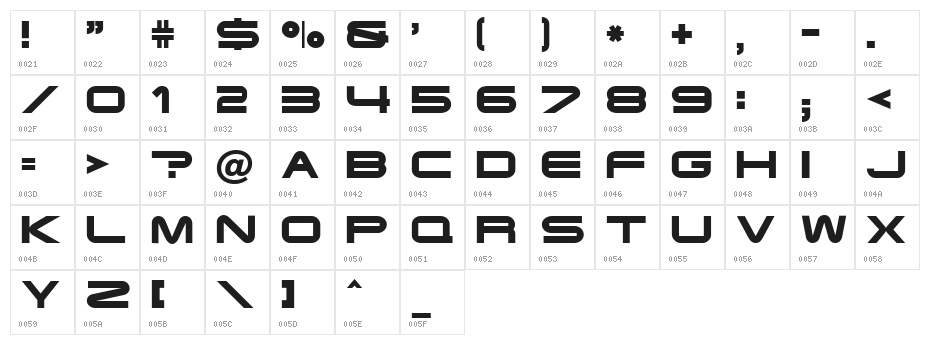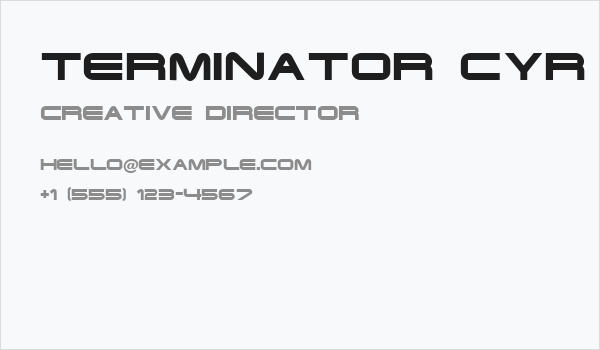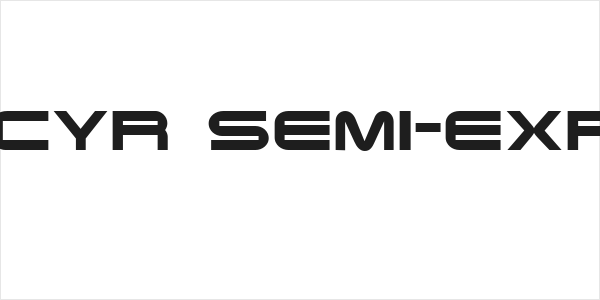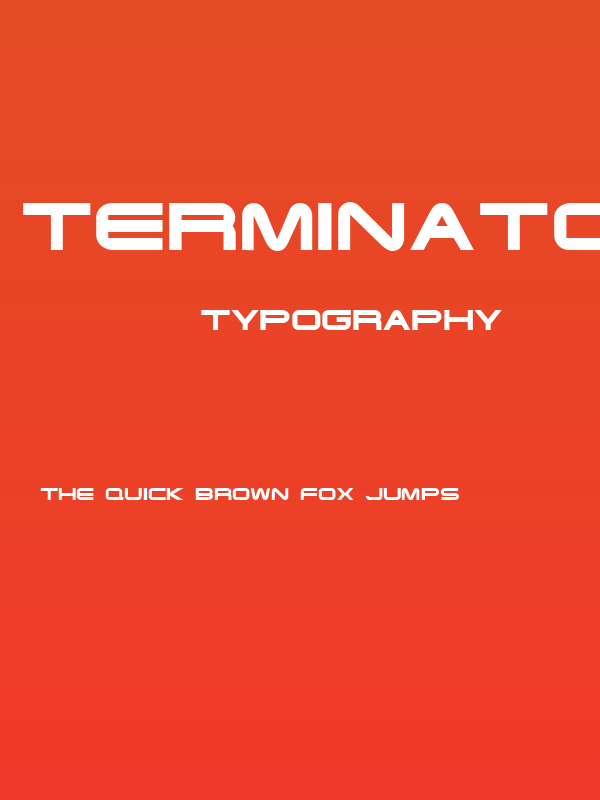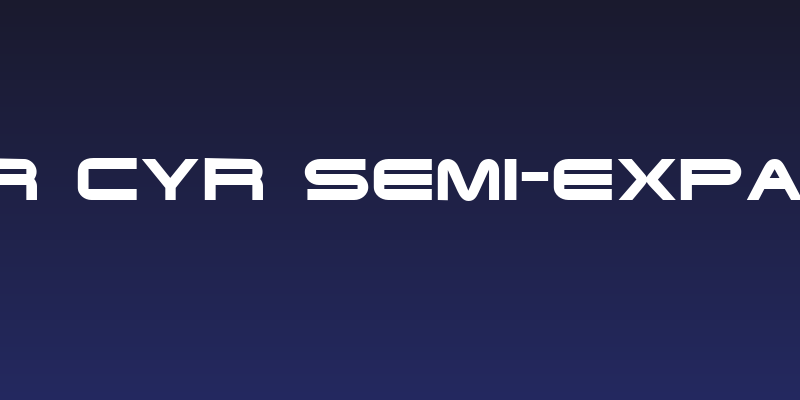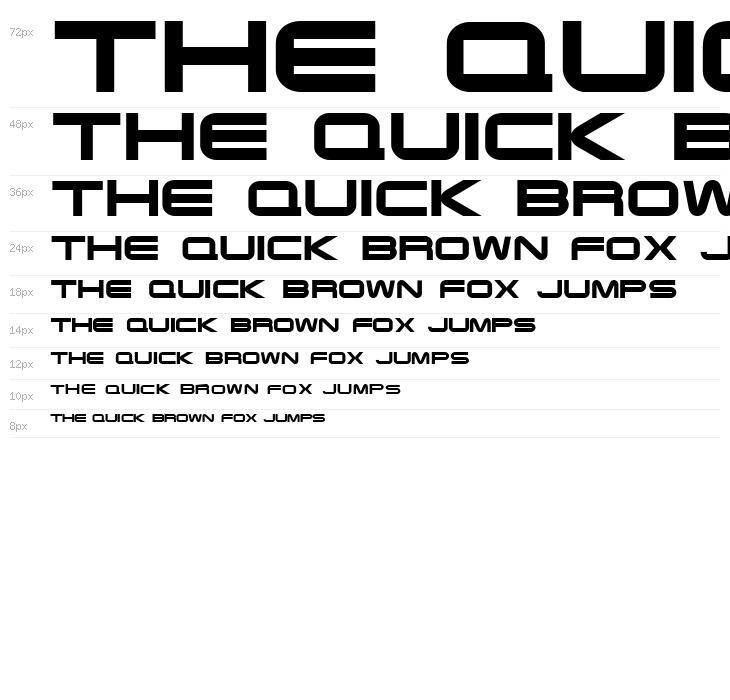
Terminator Cyr Semi-expanded Bold Font
Terminator Cyr Semi-expanded Bold Description
This font features a bold and semi-expanded style with a futuristic and mechanical appearance. The characters are designed with sharp, angular edges and a consistent stroke width, giving it a robust and industrial feel. The uppercase letters are uniform in height, while the lowercase letters maintain a similar width, creating a cohesive look. The numerals are distinct and easily readable, matching the boldness of the alphabet characters. Special characters are crafted with the same attention to detail, ensuring they fit seamlessly with the rest of the font. This font is ideal for projects that require a strong, impactful presence.